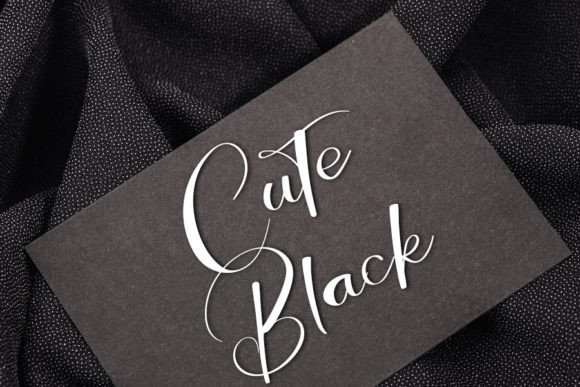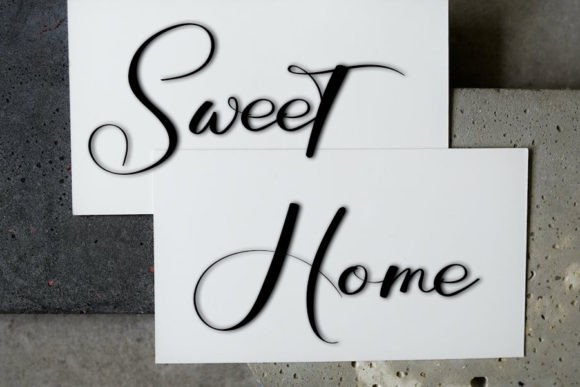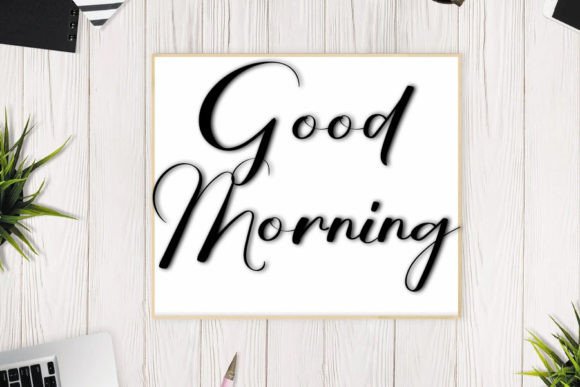
Discover the Charm of Almost Font: Elevate Your Designs with Elegance
Are you a designer or crafter looking for a font that exudes elegance and charm? Look no further than the Almost Font. This beautiful, handwritten font is perfect for adding a touch of sophistication to your designs, making it ideal for a wide range of projects, from wedding invitations to business cards.
The Almost Font: A Perfect Blend of Charming and Elegant
The Almost Font is a stunning script font that almost feels equally charming and elegant. Its unique, hand-crafted design makes it perfect for adding a personal touch to your designs. Whether you’re creating wedding invitations, thank you cards, quotes, greeting cards, logos, or business cards, this font is sure to impress.
What Makes Almost Font So Special?
So, what sets the Almost Font apart from other fonts? Here are just a few reasons why it’s a favorite among designers and crafters:
- Unique Handwritten Style: The Almost Font features a beautiful, handwritten style that’s perfect for adding a personal touch to your designs.
- Elegant and Charming: This font exudes elegance and charm, making it perfect for designs that require a sophisticated look.
- Versatile: The Almost Font is versatile and can be used for a wide range of projects, from wedding invitations to business cards.
- Easy to Read: Despite its elegant and cursive style, the Almost Font is easy to read, making it perfect for designs that require a clear and legible font.
If you’re a designer or crafter who specializes in wedding and event designs, the Almost Font is a must-have. Its elegant and charming style makes it perfect for:
- Wedding Invitations: Create beautiful and elegant wedding invitations that set the tone for the big day.
- Thank You Cards: Add a personal touch to your thank you cards with this stunning font.
- Event Stationery: Use the Almost Font to create elegant event stationery, including programs, menus, and place cards.
Ideal for Branding and Marketing Materials
The Almost Font is not just limited to wedding and event designs. It’s also perfect for branding and marketing materials, including:
- Logos: Create a stunning logo for your business or brand with this elegant font.
- Business Cards: Add a touch of sophistication to your business cards with the Almost Font.
- Brochures and Flyers: Use this font to create eye-catching brochures and flyers that showcase your brand’s personality.
Tips for Using the Almost Font
Here are a few tips for using the Almost Font in your designs:
- Pair it with a Simple Font: Pair the Almost Font with a simple font to create a beautiful contrast.
- Use it for Headings: Use the Almost Font for headings and titles to add a touch of elegance to your designs.
The Almost Font is a beautiful and elegant script font that’s perfect for designers and crafters who want to add a touch of sophistication to their designs. Its unique, handwritten style makes it perfect for a wide range of projects, from wedding invitations to business cards. With its versatility, elegance, and charm, the Almost Font is a must-have for any designer or crafter looking to elevate their designs.